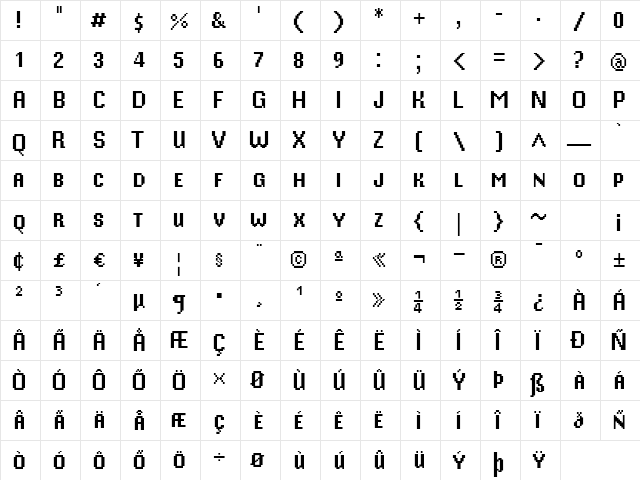
Mister Pixel 16 pt - Small Caps Regular
Design Context for Mister Pixel 16 pt - Small Caps Typeface
Mister Pixel 16 pt - Small Caps is rooted in pixel-grid construction, making it a natural fit for game UI, retro computing aesthetics, and digital nostalgia projects.
Well-suited to indie game interfaces, retro computing aesthetics, and pixel art-adjacent design work.
Pro Tip: Use Mister Pixel 16 pt - Small Caps at sizes that align with its pixel grid for the sharpest rendering — scaling to non-integer multiples can introduce unwanted blur.